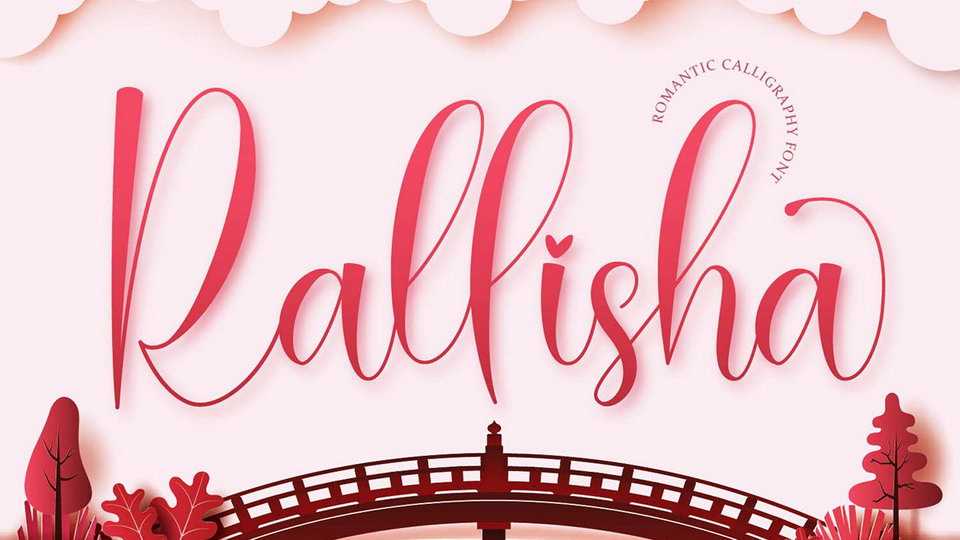
Downlload Rallisha font, a romantic modern calligraphy typeface. Rallisha will be suitable for all your other lovely projects that need beautiful calligraphy taste.